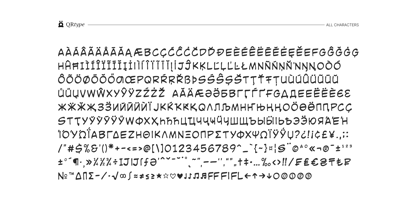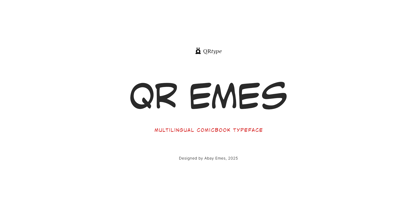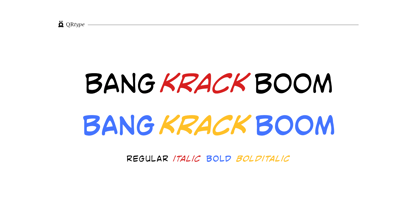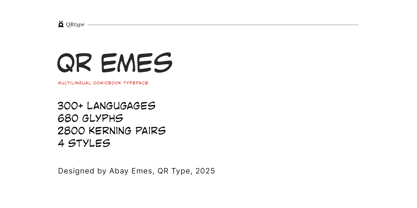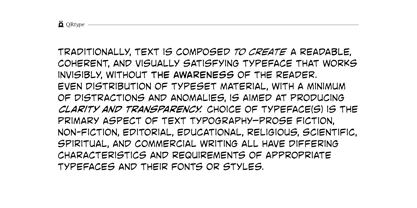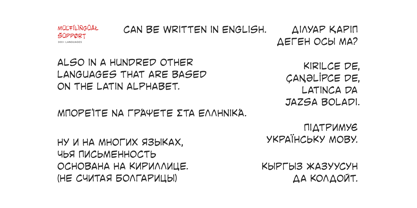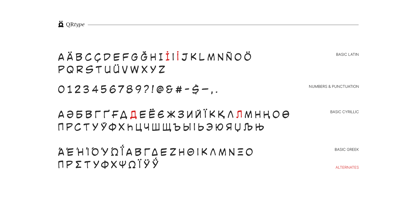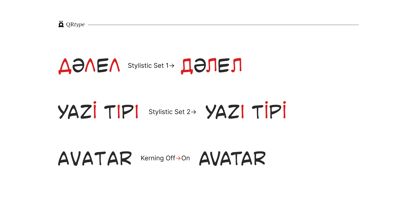
QR Emes
by QR Type
The QR Emes Font Family was designed by Abay Emes and published by QR Type. QR Emes contains 4 styles and family package options. More about this family
All uppercase typeface for comic book lettering. Supports extended Cyrillic, Green and extended Latin characters.
It has two stylistic sets:
1. Alternates for Cyrillic L and D.
2. Alternates for languages with dotless ı and i with dot (like Turkish)